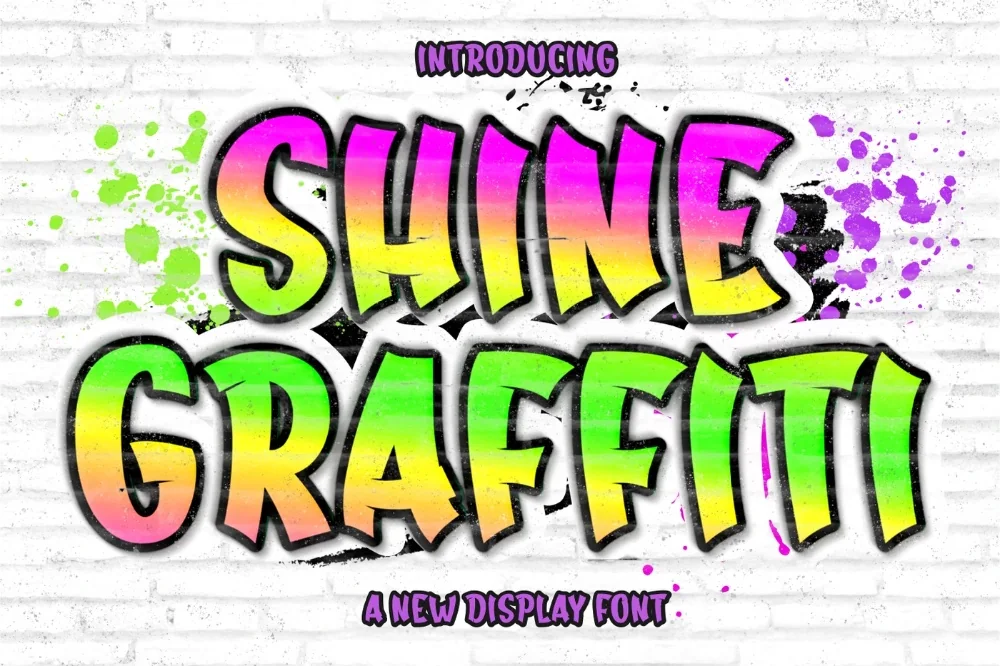
Chrome Shine Graffiti Font
If you have been hunting for a chrome graffiti font that does not look like every other download on the internet, this one earns its place. Bright highlight shapes cut into the letters like polished metal. Classic chrome, drawn straight into the alphabet.
Highlights sit as separate white shapes along the top of each stroke, with darker bands beneath, mimicking the way light wraps a curved metal surface. Set it on a dark background for the strongest effect.
The right choice for album art, car and moto graphics, tournament posters, and metallic-look merch.